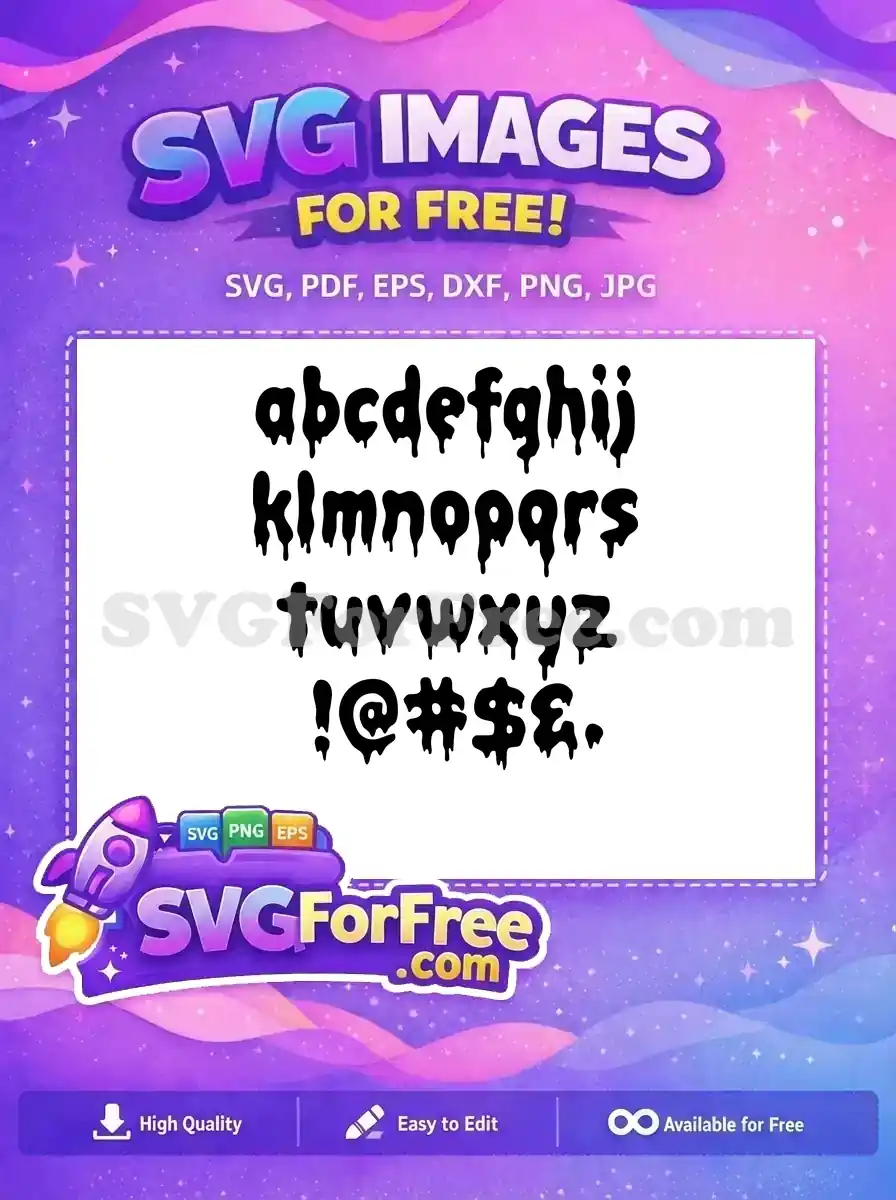
Free Dripping Black Font Free Spooky Alphabet Afro Amarican Cartoon Free SVG – Instant Download
Dive into creativity with this free dripping font SVG design, perfect for spooky themes or unique projects. Unleash your imagination!
Free Dripping Black Font Free Spooky Alphabet Afro Amarican Cartoon Free SVG